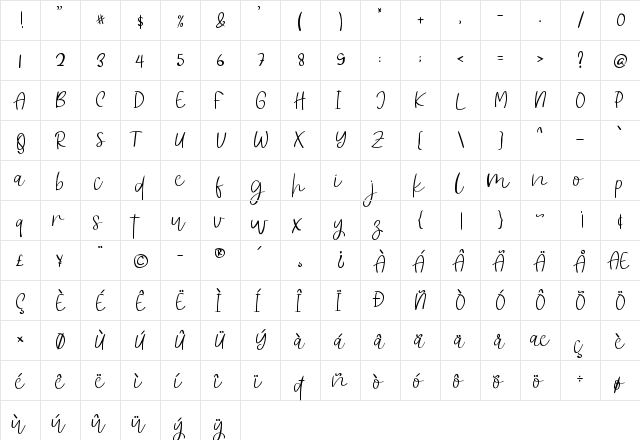
boba lova Regular Font Preview
boba lova Regular
boba lova Regular Font Details
| Designer | AMIN MARYONO |
Design Context for boba lova Typeface
boba lova takes a measured approach to typography — its balanced proportions and neutral character make it a reliable workhorse for both digital and print work.